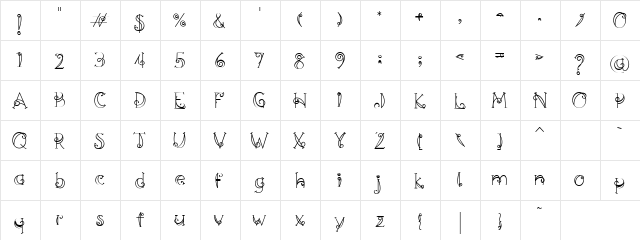
LD Curly Swirls Regular
Design Context for LD Curly Swirls Typeface
LD Curly Swirls brings ornamental detail and strong personality to headlines and identities, where visual impact matters more than quiet functionality.
Font Pairing: Pair with a clean neutral sans-serif for body copy to let LD Curly Swirls's character lead without overwhelming the composition.
Pro Tip: Use LD Curly Swirls exclusively at display sizes — it was designed to be seen, not read at length. Let a neutral companion handle body copy.